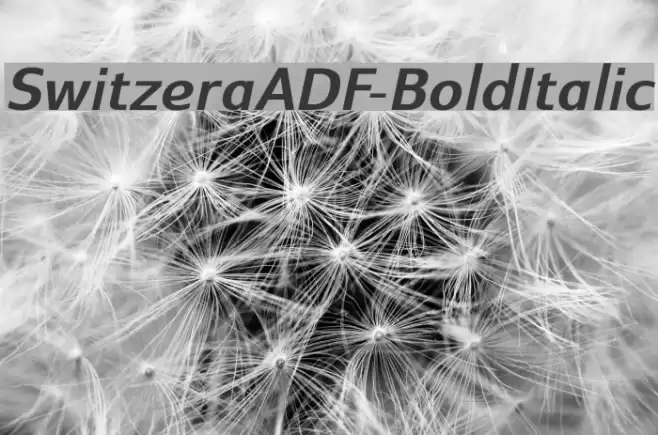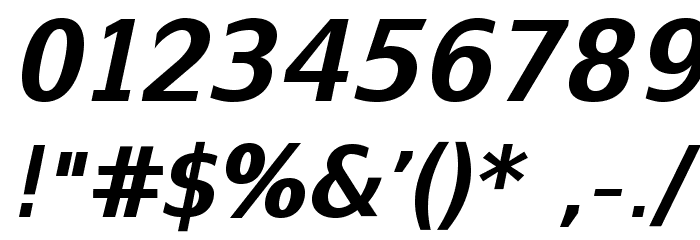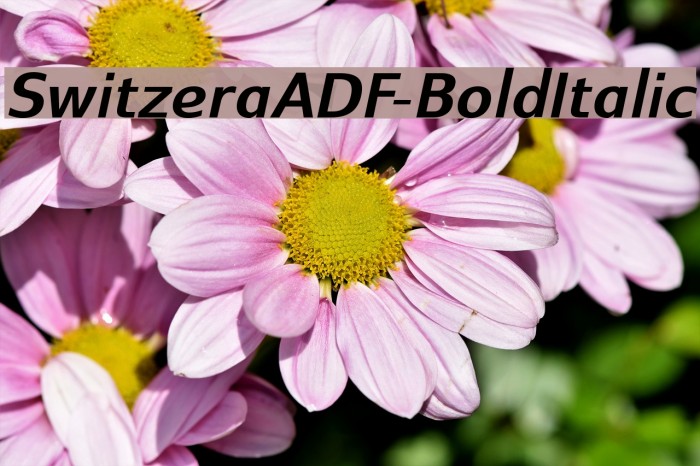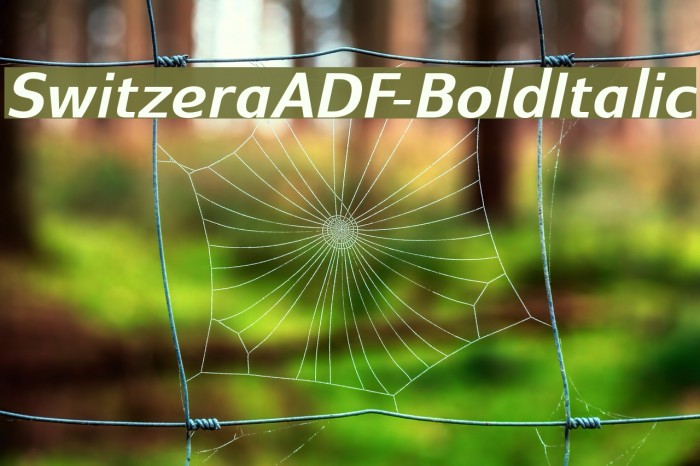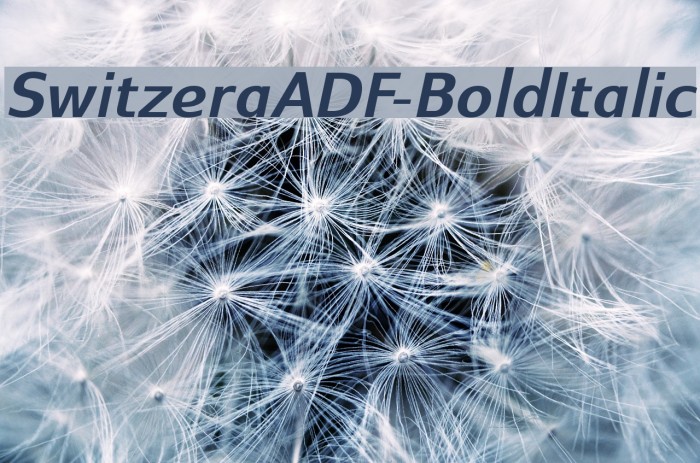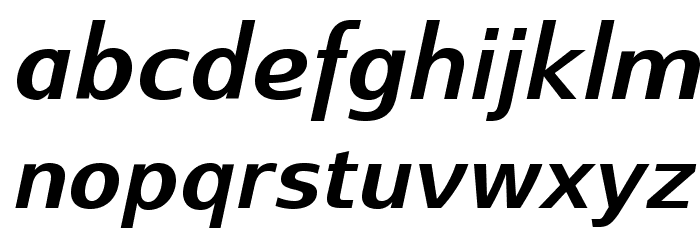
SwitzeraADF-BoldItalic Font
SwitzeraADF-BoldItalic Description
This font exhibits a modern and sleek design with a bold and italicized style. The characters are slightly slanted, giving a dynamic and forward-moving appearance. The strokes are consistent in thickness, providing a uniform look across all characters. The font maintains a clean and professional aesthetic, suitable for a variety of applications. The uppercase and lowercase letters are well-proportioned, and the numerals are clear and easily distinguishable. Special characters are included, enhancing its versatility for different contexts.
A bold and italicized modern font with a sleek, professional look from Uncategorized fonts.
- Proposed Projects: Ideal for branding, advertising, and editorial design projects where a modern and dynamic appearance is desired.
- Use Case: Headlines, Logos, Branding